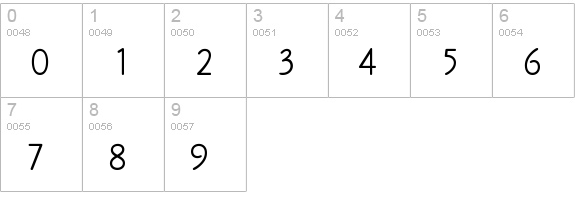
OPTICookeSans Font Details
Introducing OPTICookeSans, a modern and versatile sans-serif font that is perfect for a wide range of design projects. With its clean lines and balanced proportions, OPTICookeSans exudes a sense of professionalism and sophistication. This font is ideal for use in branding, logos, headlines, and any other design application where a sleek and contemporary look is desired. What sets OPTICookeSans apart is not only its aesthetic appeal but also the fact that it is completely free to download. Yes, you read that right - this high-quality font is available for free at FontsMarket.com. Whether you're a seasoned designer looking to add a new typeface to your collection or a beginner exploring different typography options, OPTICookeSans is a fantastic choice that won't cost you a thing. Don't miss out on the opportunity to enhance your designs with OPTICookeSans. Download this stylish and versatile font today and take your projects to the next level.